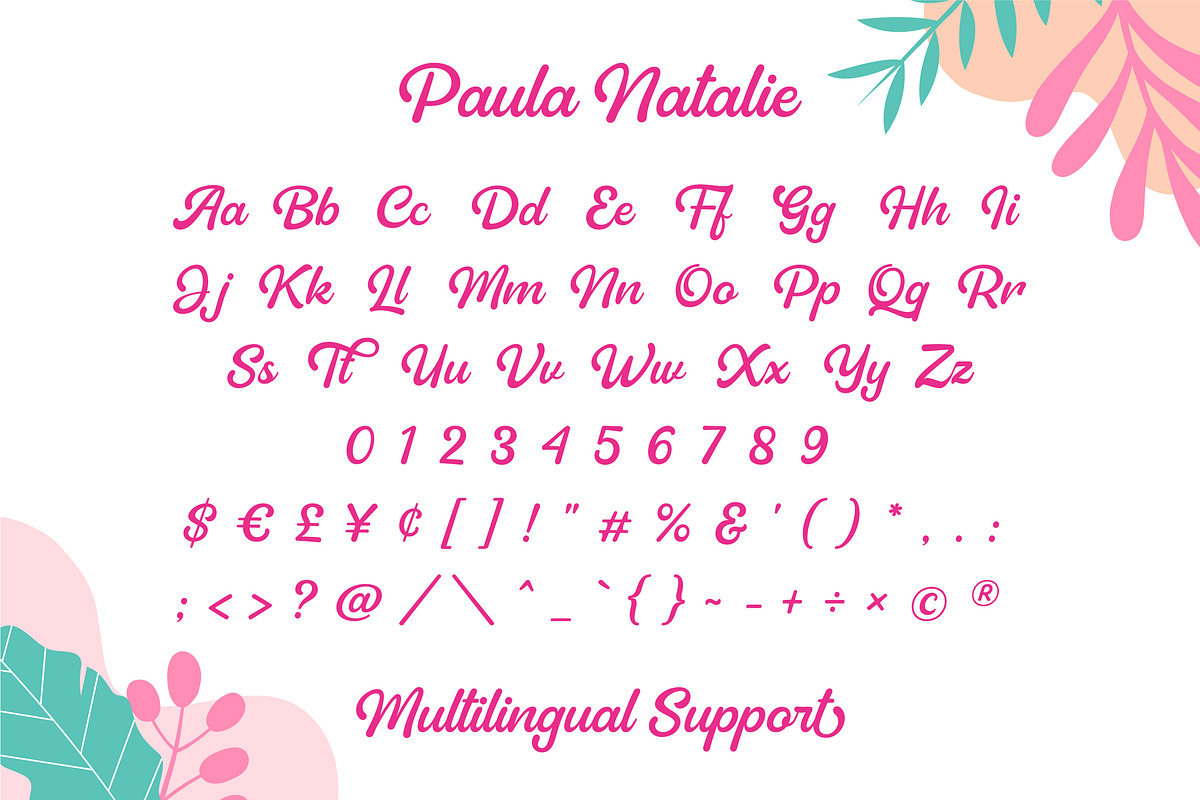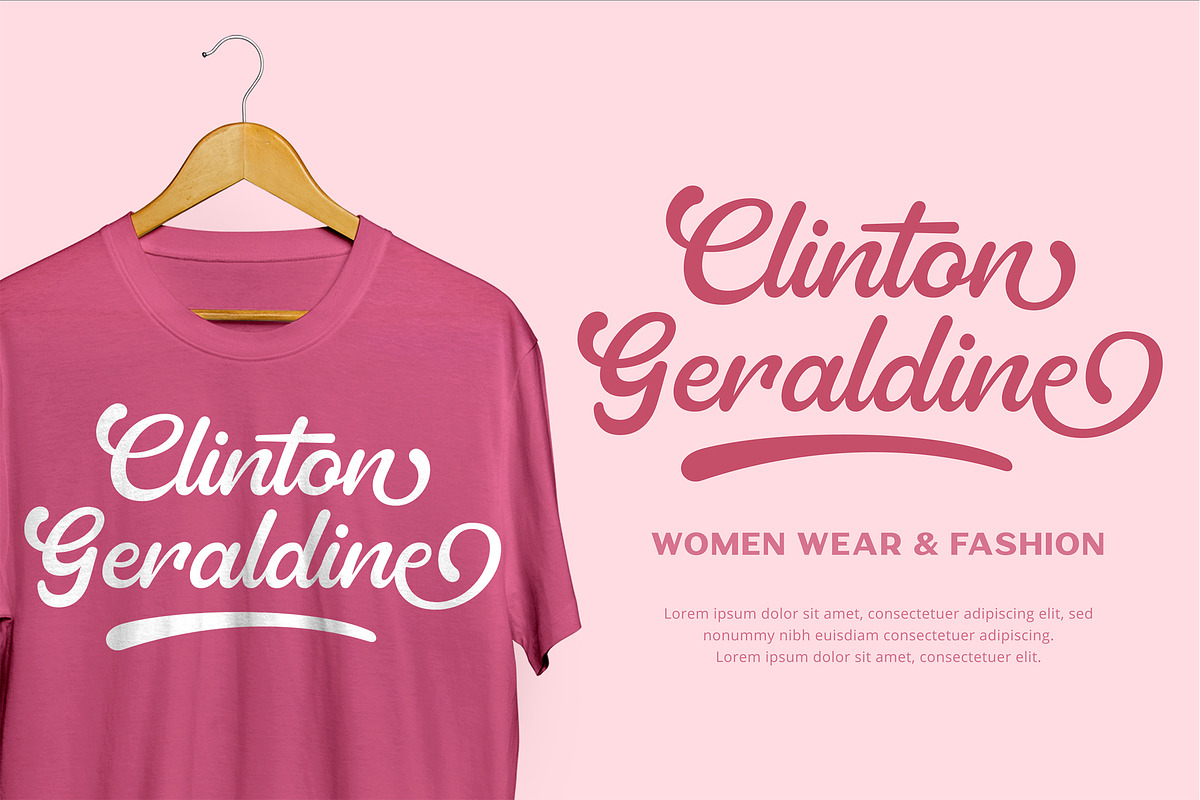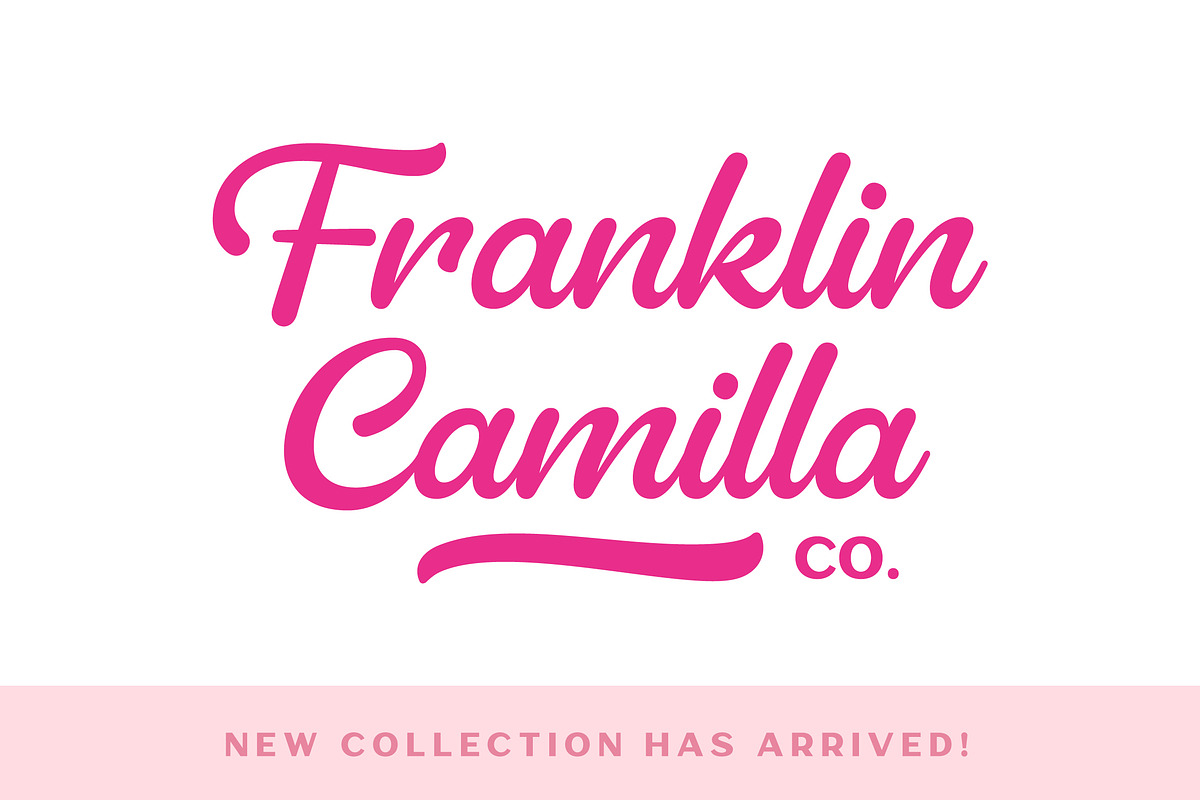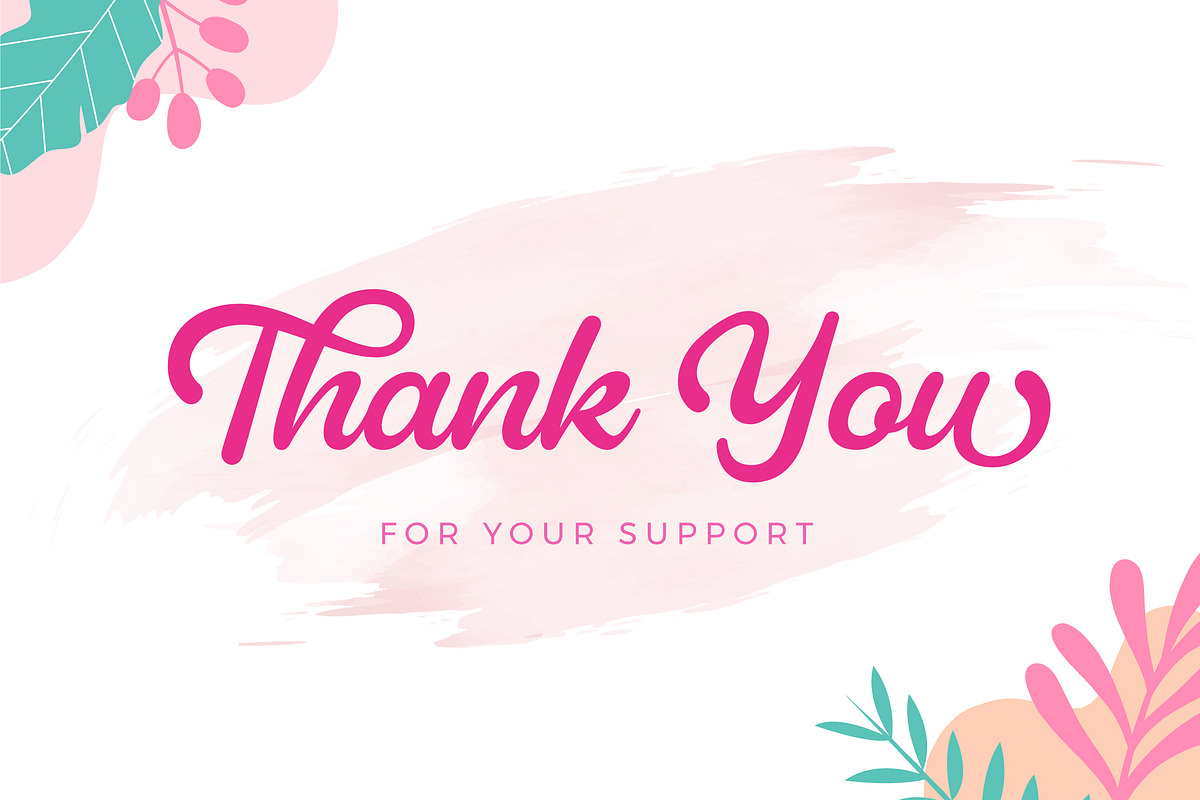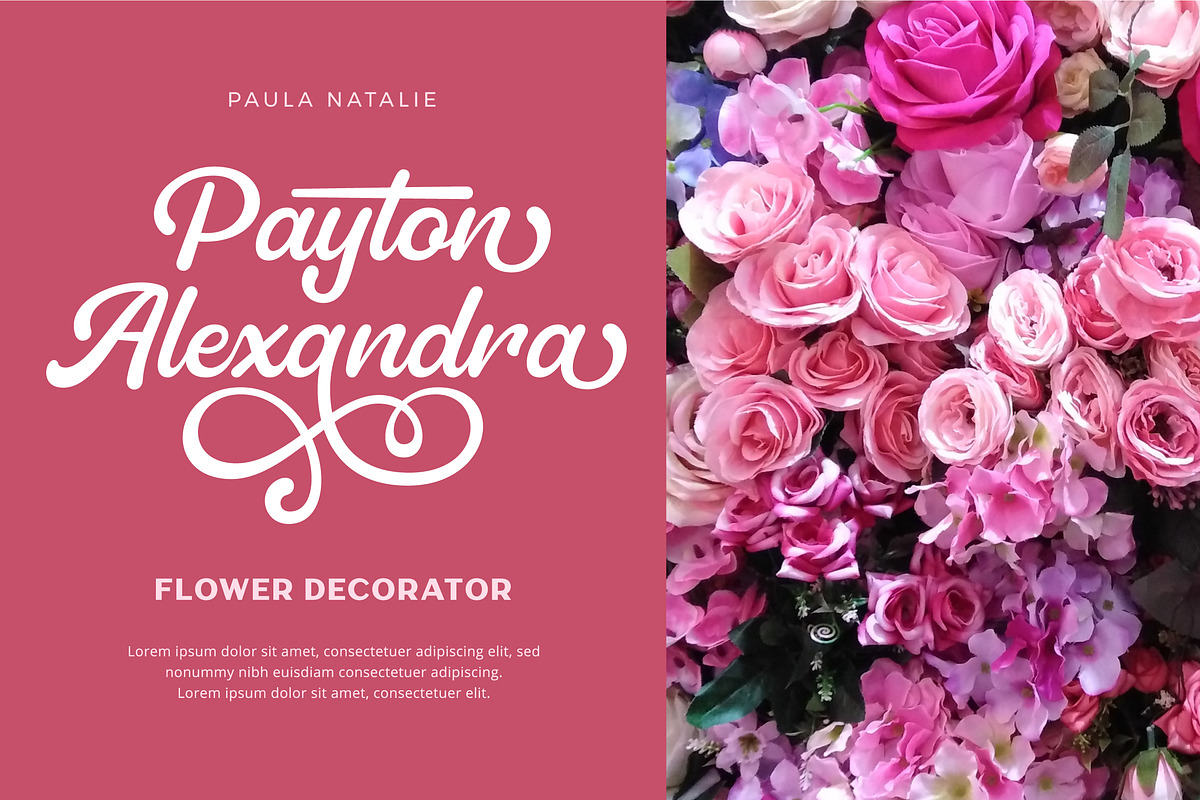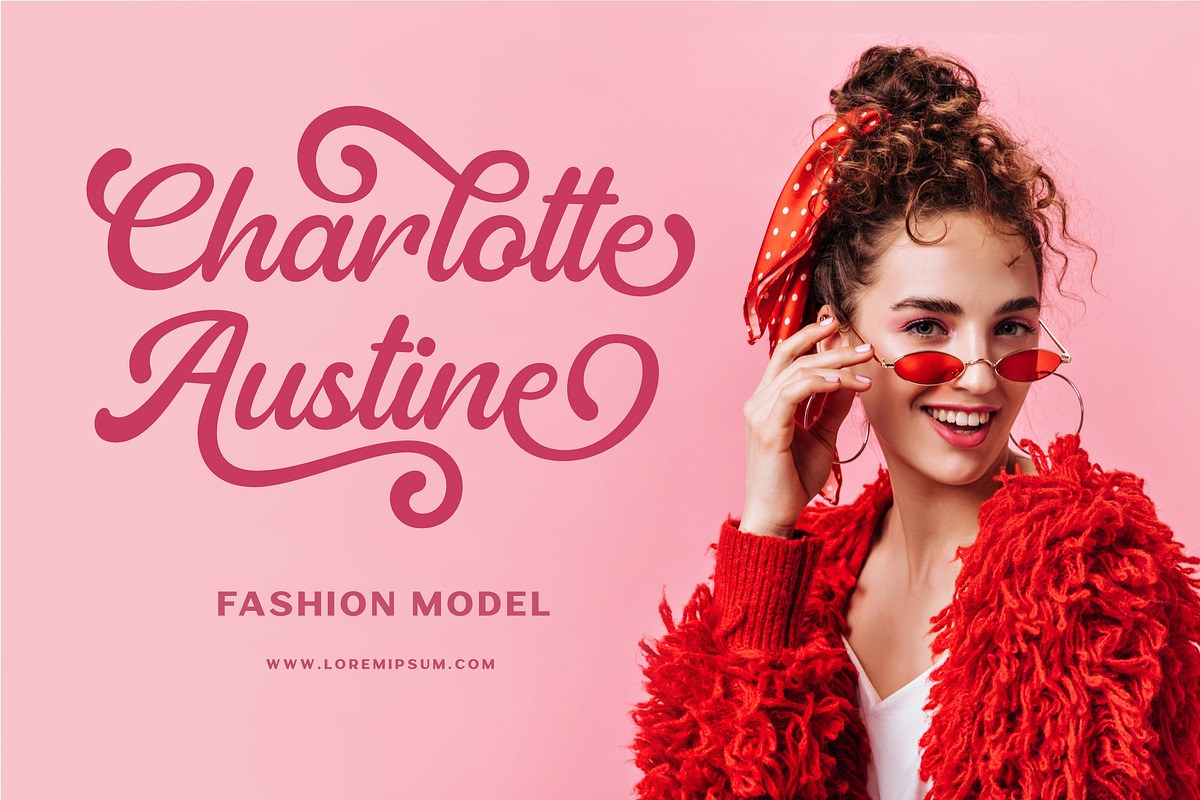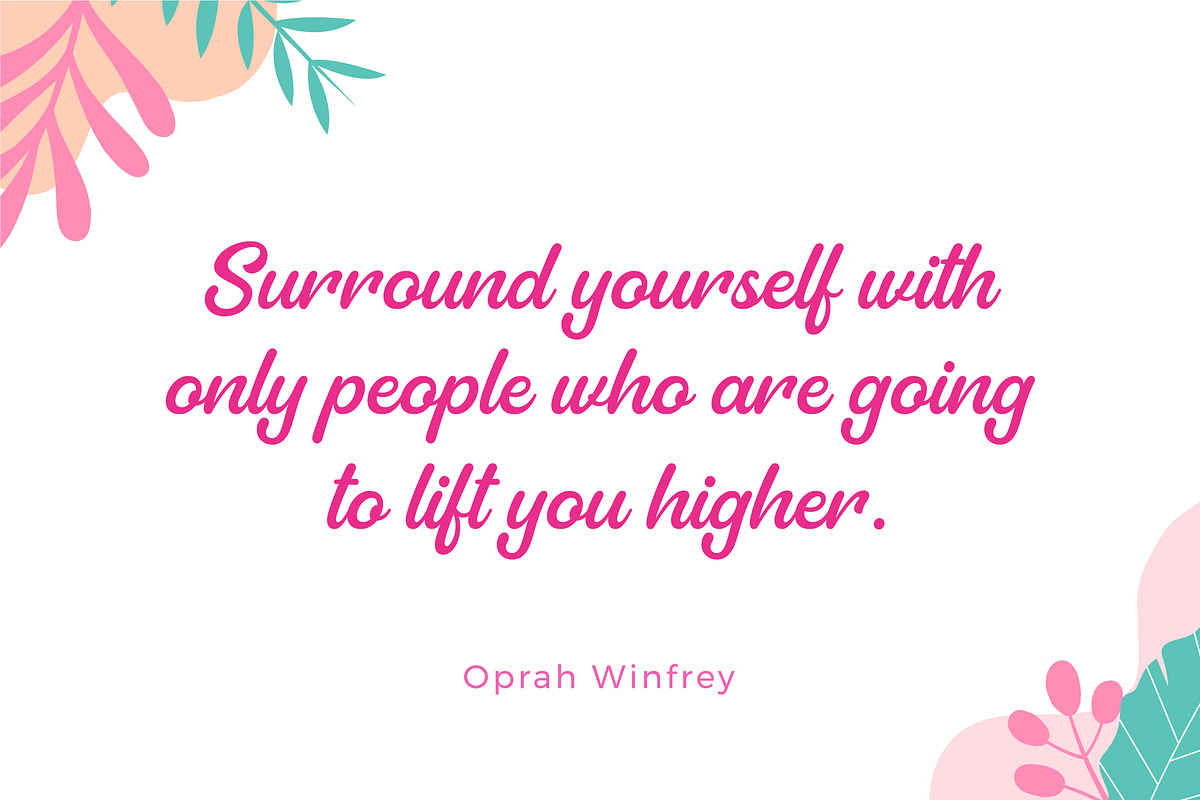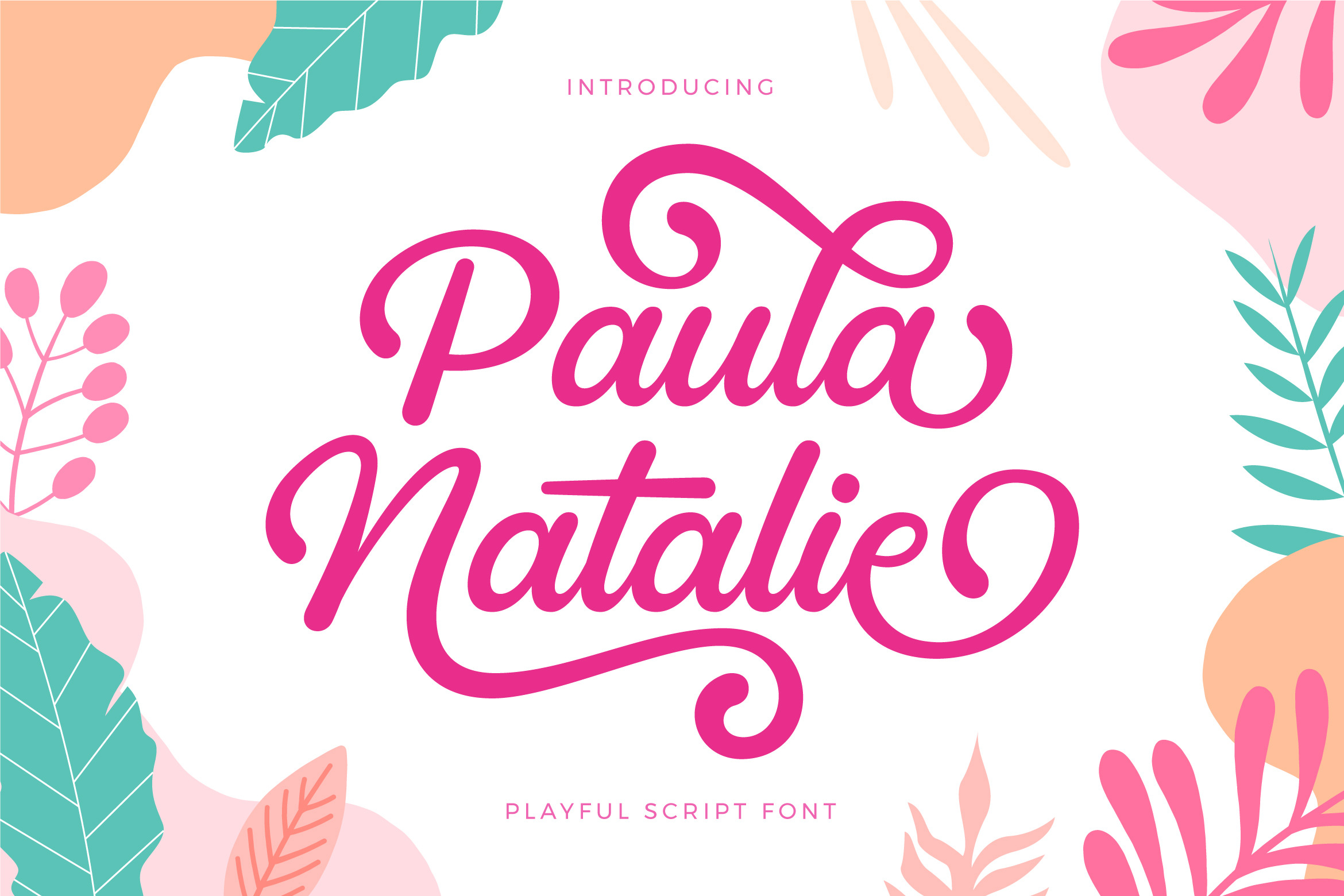
Paula Natalie - Playful Script Font
Paula Natalie is a cute and playful script font. This font was created to give your headlines and logotype projects a cheerful touch. Paula Natalie font is also usable in a wide range of works such as logos, covers, posters, quotes, product packaging, merchandise, social media and much more!
- Multilingual Language